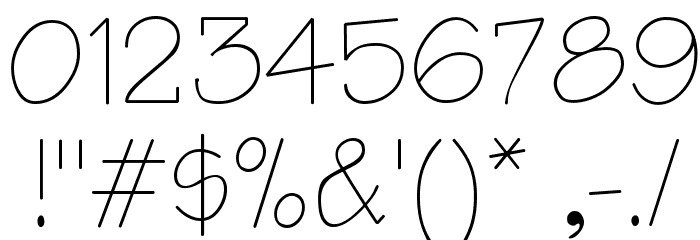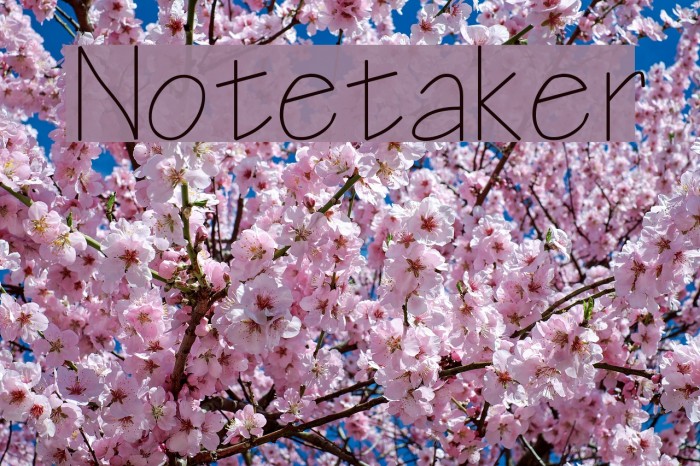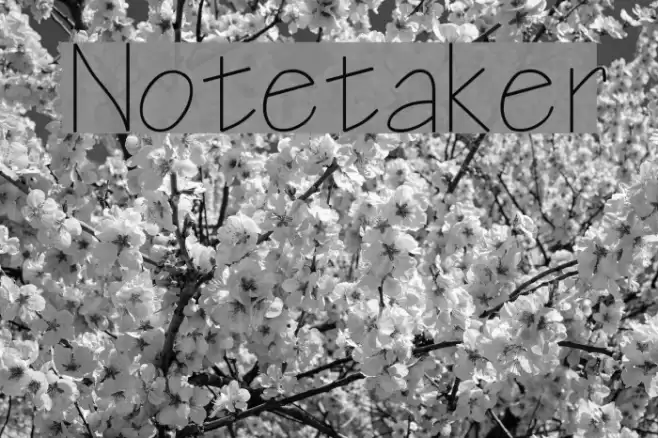
Notetaker Font
Notetaker Description
This font features a clean, handwritten style with a playful and casual appearance. The characters are thin and slightly irregular, giving them a personal and informal feel. The uppercase letters are tall and narrow, while the lowercase letters maintain a consistent height, contributing to a harmonious flow. The numerals are clear and easy to read, with a uniform thickness that matches the letters. Special characters are well-integrated, maintaining the overall aesthetic. This font is ideal for projects that require a friendly and approachable look, such as personal notes, invitations, or creative projects.
| Overall Style | Casual |
| Use Case | Headlines, Informal text, Creative projects |
| Proposed Projects | Ideal for personal notes, invitations, greeting cards, and creative projects. |